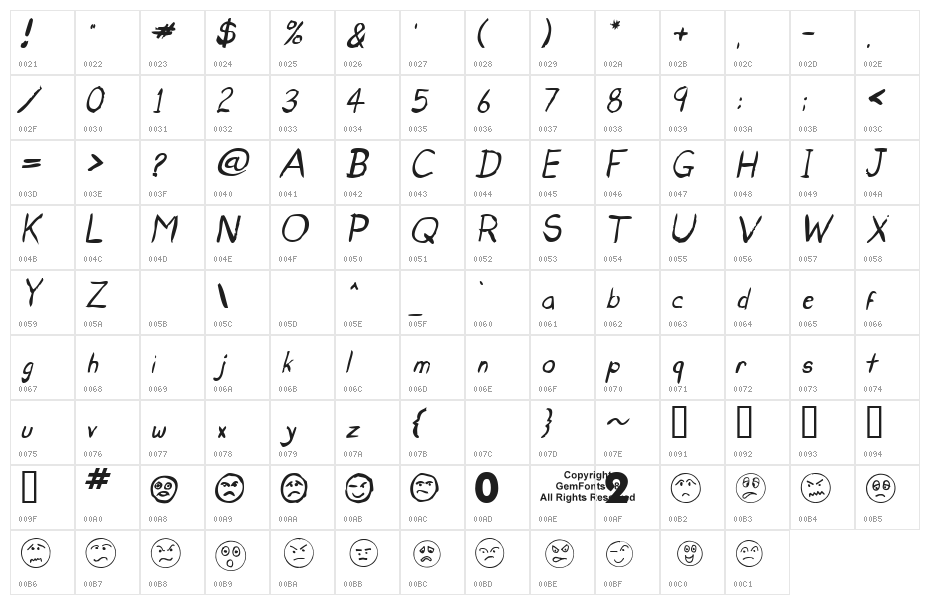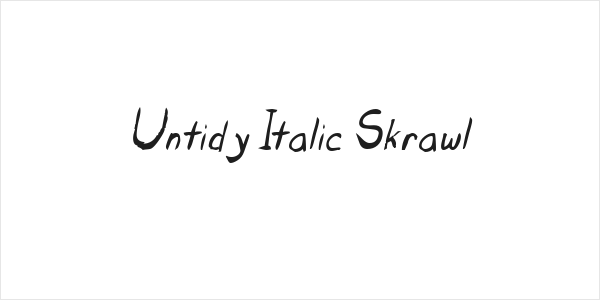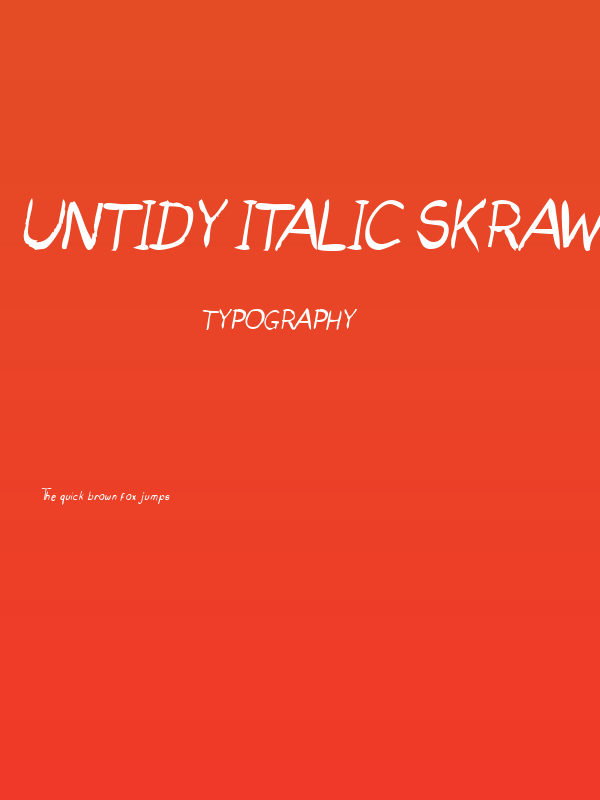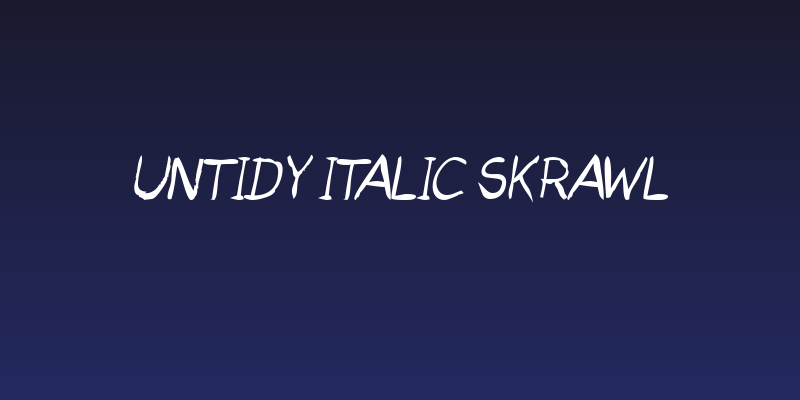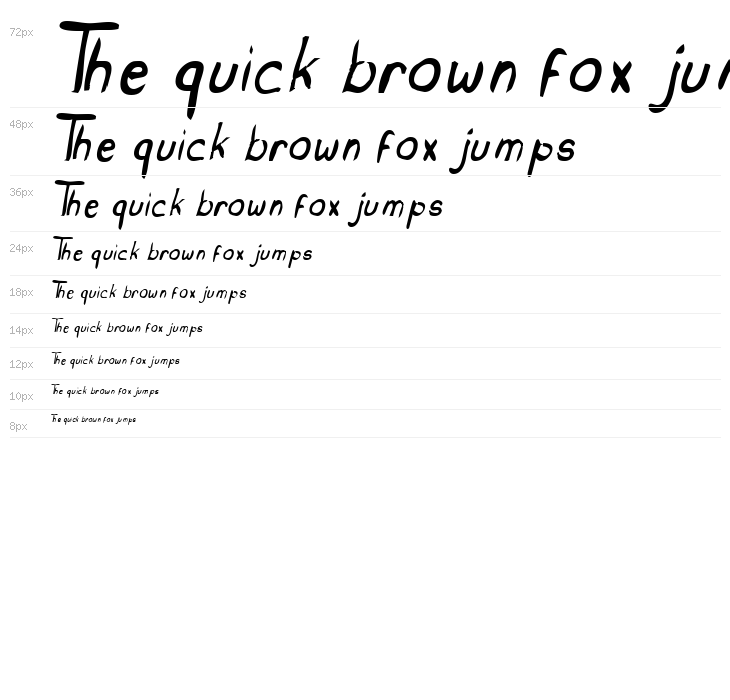
Untidy Italic Skrawl Font
Untidy Italic Skrawl Description
This font exudes a casual and spontaneous vibe, characterized by its handwritten style with a slightly chaotic flair. The letters are slanted, giving it an italic appearance, and the strokes vary in thickness, adding to its dynamic and lively feel. The uppercase and lowercase letters maintain a consistent style, with a playful and informal touch. Numbers and special characters follow the same aesthetic, making the font versatile for creative projects. The overall impression is one of energy and movement, perfect for designs that aim to capture attention with a personal touch.
| Proposed Projects | Ideal for creative projects such as greeting cards, posters, and social media graphics where a personal and energetic touch is desired. |